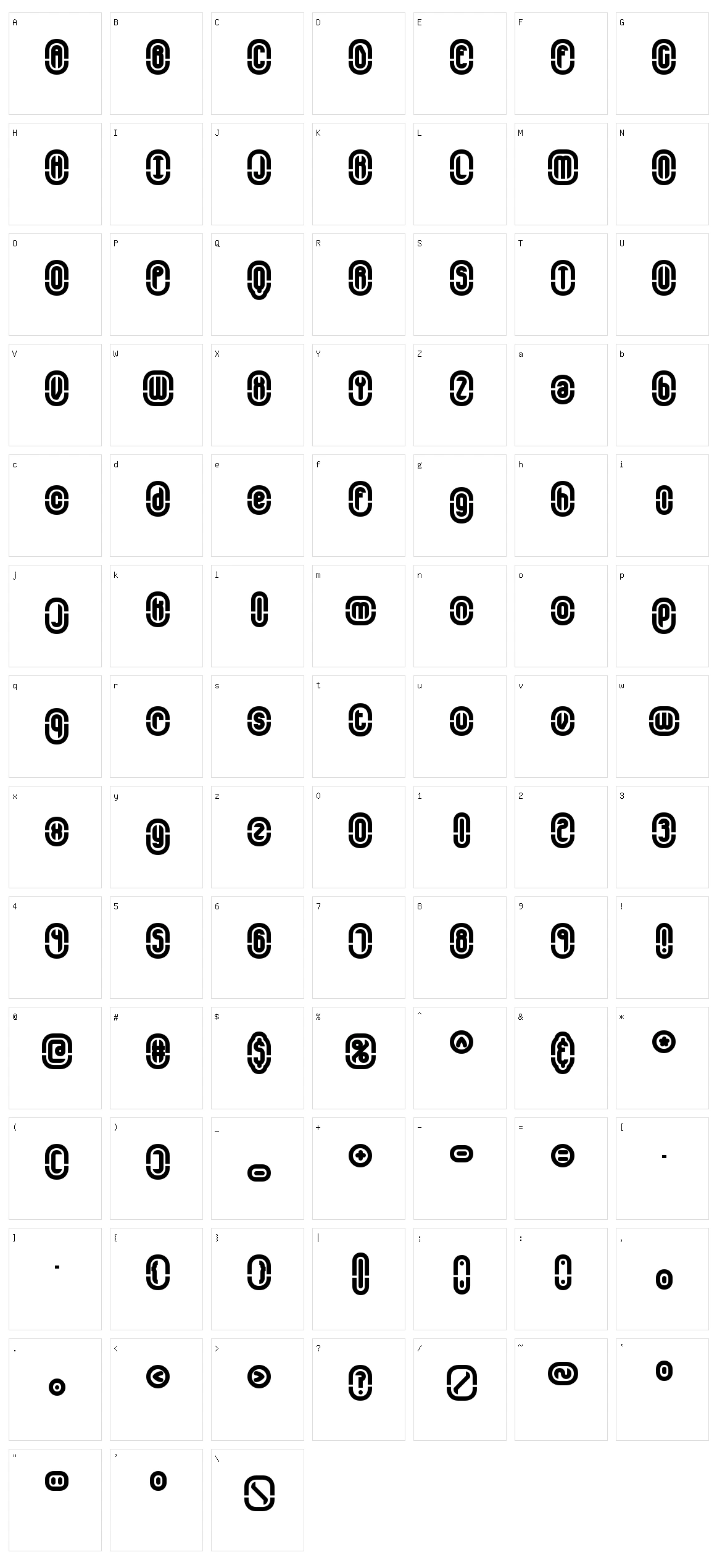
Encapsulate
Encapsulate Created by Brian Kent
- Encapsulate
- Encapsulate Plain
When using Encapsulate (not the plain version), you can 'cap' the
sides of your text/character by using [ or ]
ex. [Encapsulate] <- just the right and left are 'capped'
ex. [E[n[c[a[p[s[u[l[a[t[e] <- each character is 'capped'
There are some alternative extra characters included in this font.
[KEY]
EXTRA CHARACTER = ACTUAL CHARACTER = ALT# CODE
Cap Blank = È = ALT+0200 [not used in Encapsulate Plain]
Low Blank = É = ALT+0201 [not used in Encapsulate Plain]
J = Ê = ALT+0202
L = Ë = ALT+0203
b = Ì = ALT+0204
d = Í = ALT+0205
h = Î = ALT+0206
p = Ï = ALT+0207
q = Ð = ALT+0208